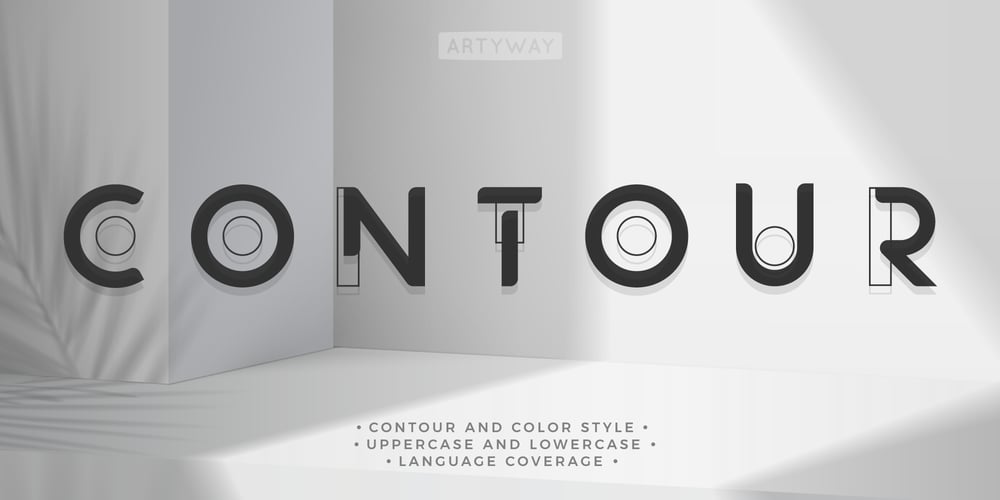
Contourism
Contourism font
Contourism Font Family was designed by Yehor Lisnyi and published by Artyway. Contourism contains 2 styles and family package options. The Contour font is a futuristic letter set, inspired by architecture and future style.Suitable for amazing projects: hud, web, movie or music, and especially logo and headline.The Contour is an amazing futuristic font with linear space and color spot shapes.Your download will include Uppercase and lowercase letters Punctuation Numbers Multilingual coverage